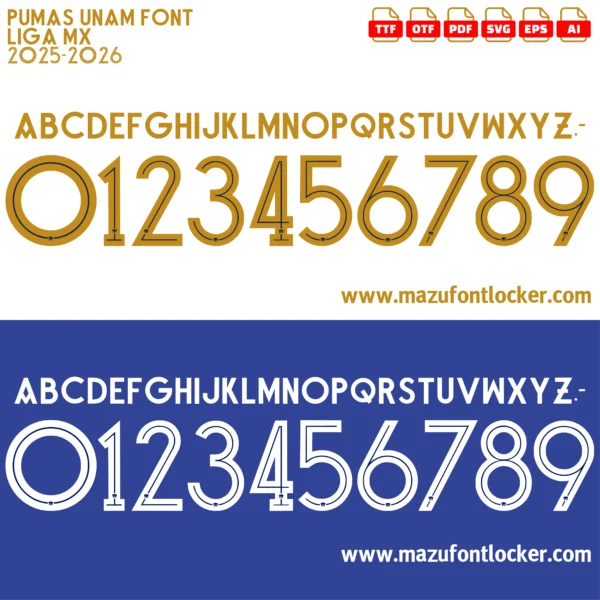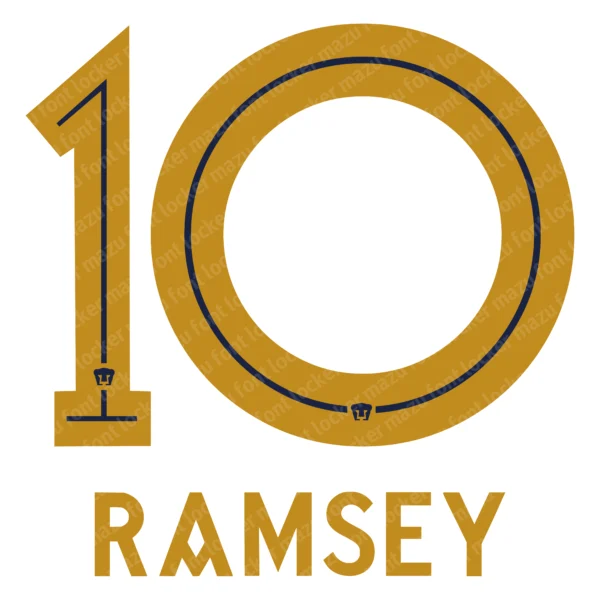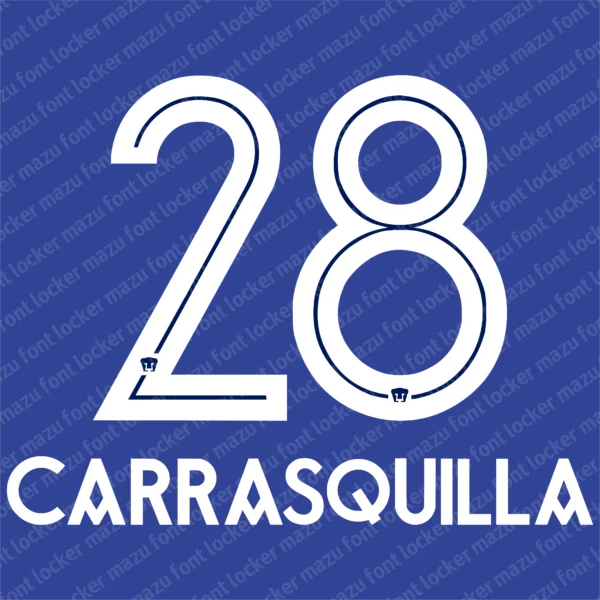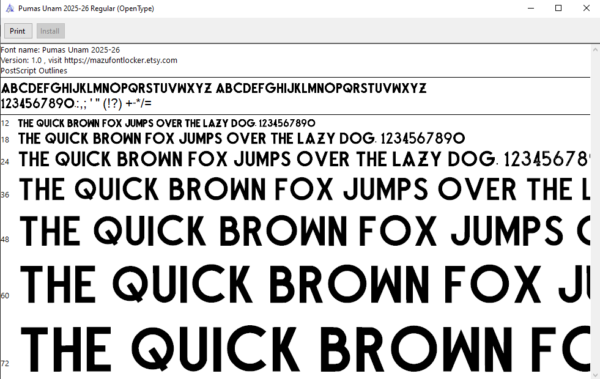
Pumas Unam 2025-2026 Font Vector – Fierce Auriazul Mexican Power Masterpiece
Channeling the proud Pumas spirit and Universitarios legacy, it features the powerful style that defines one of Mexico’s most passionate clubs. Perfect for premium jersey mockups, football designs, and true Pumas art.
Pumas UNAM 2025-2026 Font Vector – Authentic Auriazules Typeface
The Pumas UNAM 2025-2026 Font Vector is a premium typeface that precisely recreates the official match lettering worn by Club Universidad Nacional (Pumas UNAM) during the 2025-2026 season. This high-quality vector font kit captures the bold, clean, and energetic style that represents one of Mexico’s most iconic clubs.
Designed for professional designers and dedicated Pumas fans, the Pumas UNAM 2025-2026 Font Vector delivers outstanding authenticity for realistic jersey mockups, fan merchandise, matchday graphics, social media content, and more. It complements perfectly with the club’s signature blue and gold kits.
Why Choose Pumas UNAM 2025-2026 Font Vector
This font is valued for its accuracy and strong university spirit. Every character and numeral has been meticulously designed to mirror the exact typography used on the players’ shirts throughout the 2025-2026 Liga MX season. It brings the true passion and identity of Estadio Olímpico Universitario to your designs.
The letterforms in the Pumas UNAM 2025-2026 Font Vector are modern, bold, and highly legible with sharp contours and balanced proportions. The design projects strength and elegance, making it ideal for both large jersey numbers and detailed creative work.
The numerals feature solid athletic styling with clean edges and excellent spacing, ensuring they look commanding on the back of jerseys while maintaining superior readability in print and digital formats.
- Full uppercase A–Z and numbers 0–9 in authentic Pumas UNAM 2025-2026 style
- Special Pumas UNAM crest glyph for accurate shirt number detailing
- Multilingual Latin character support including diacritics
- Includes the exact crest glyph placement used under player numbers